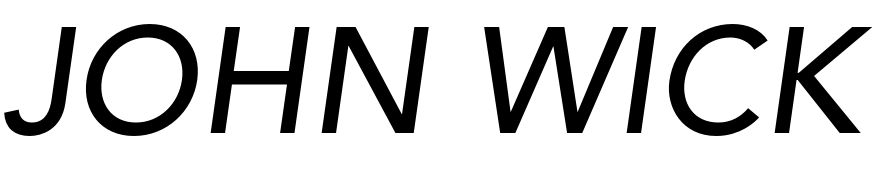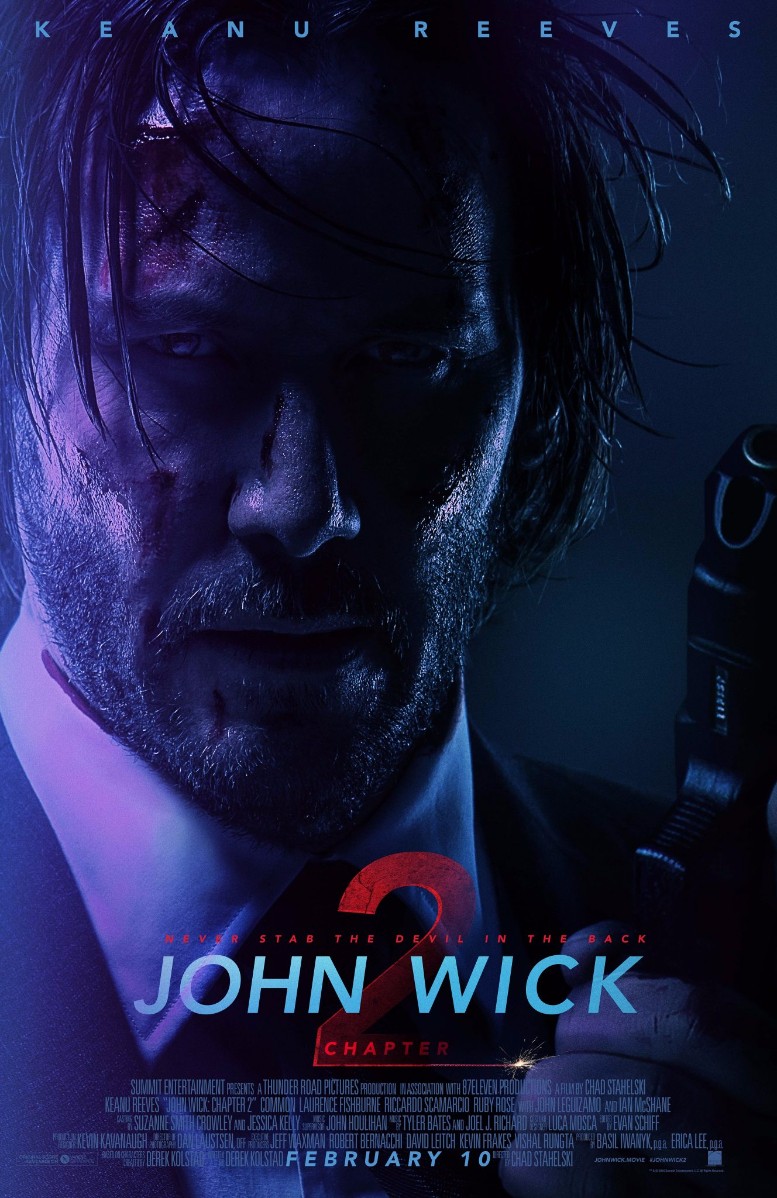
John Wick Chapter 2 Font
ActionJohn Wick: Chapter 2 is a 2017 action-packed film that follows the legendary assassin John Wick as he is forced back into the world of violence, facing dangerous adversaries in a thrilling and high-stakes quest for survival and revenge.
The film title on the poster of John Wick Chapter 2 features the Avenir Medium Oblique font, a Swiss geometric sans serif designed by Adrian Frutiger and released in 1988 by Linotype-Hell AG.